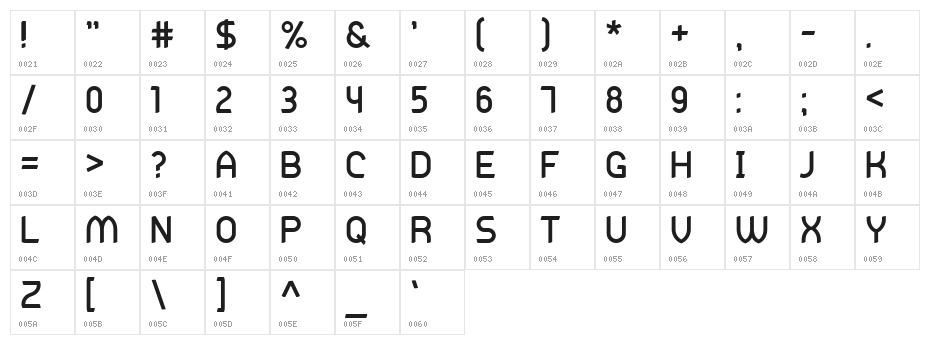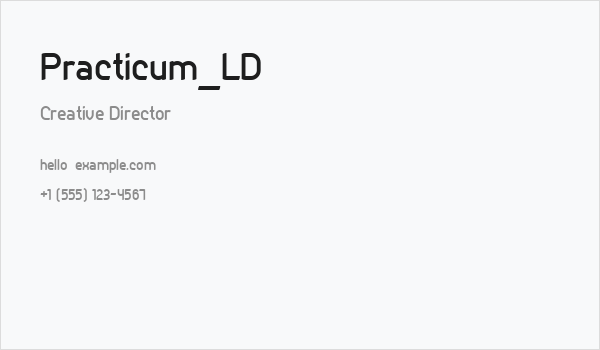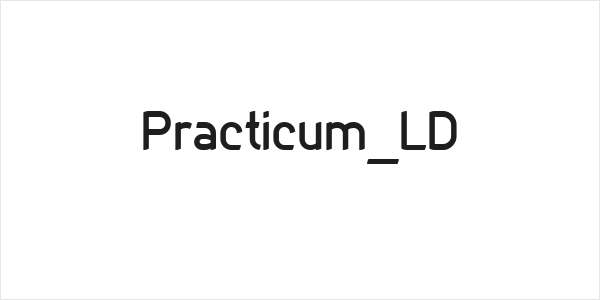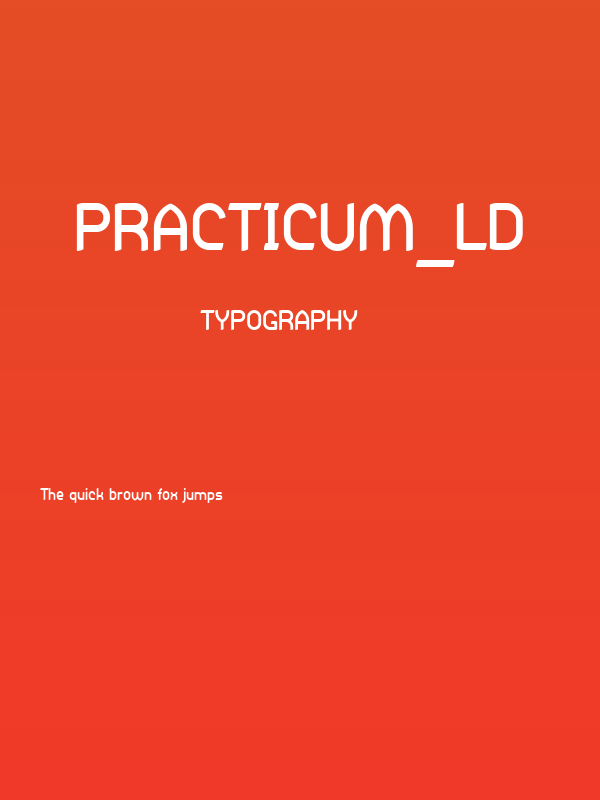
Practicum_LD Font
Practicum_LD Description
This font features a clean and modern sans-serif style with rounded edges, providing a friendly and approachable appearance. The characters are evenly spaced, ensuring readability and clarity. The uppercase letters are bold and assertive, while the lowercase letters maintain a consistent flow with slightly softer curves. The numerals are clear and distinct, making them suitable for various applications. Special characters are well-defined, adding versatility to the font's use. Overall, this font balances modern aesthetics with functionality, making it ideal for both digital and print media.
| Use Case | Headlines, Body text, Logos |
| Proposed Projects | Ideal for branding, user interfaces, signage, and educational materials. |